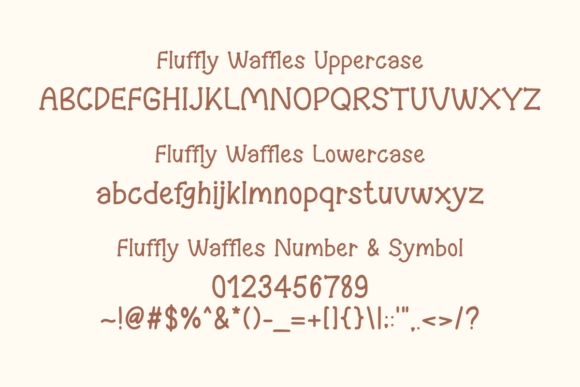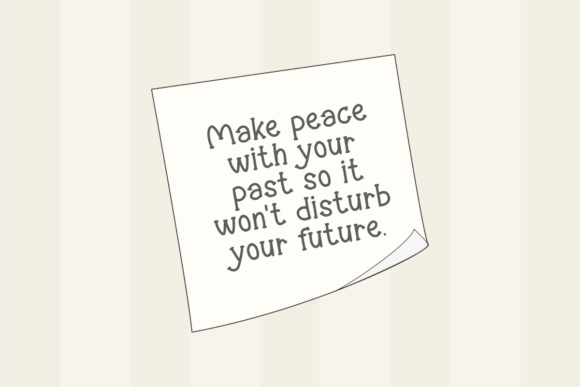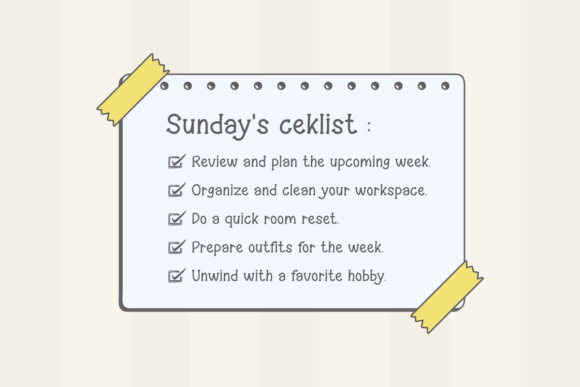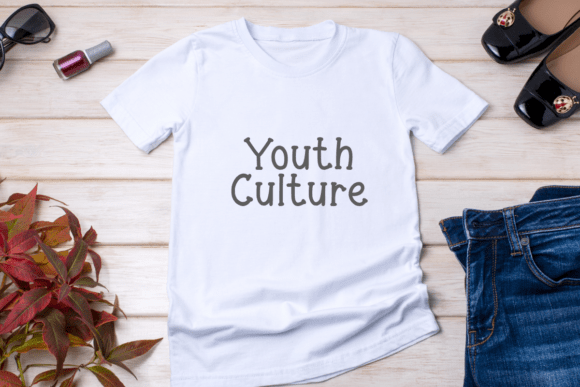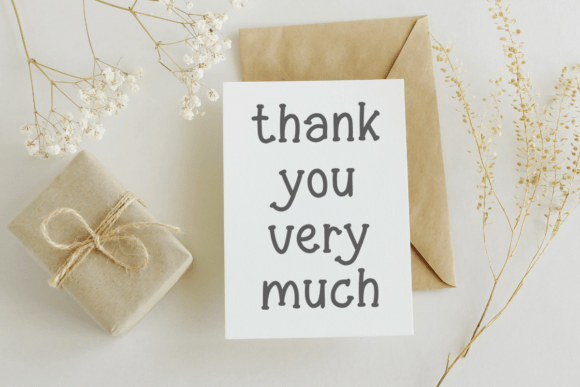
Introducing Fluffy Waffles Font: Elevate Your Designs with Elegant Minimalism
In the world of digital design, fonts play a crucial role in conveying the tone and aesthetic of a project. For crafters, designers, and DIY enthusiasts, finding the perfect font can be a game-changer. If you’re on the hunt for a font that embodies elegance, simplicity, and a touch of natural charm, look no further than Fluffy Waffles Font. This beautifully crafted, thin sans serif font is designed to bring a sophisticated yet understated appeal to a wide range of creative projects.
The Essence of Fluffy Waffles Font
Fluffy Waffles Font is an elegantly minimalist, thin sans serif font that captures the essence of natural handwriting. Its delicate strokes and subtle curves evoke a sense of simplicity and refinement, making it an ideal choice for designers and crafters seeking to add a touch of sophistication to their work. Whether you’re creating planners, journals, interior designs, or various craft projects, Fluffy Waffles Font is poised to elevate your designs to new heights.
One of the standout features of Fluffy Waffles Font is its incredible versatility. This font excels in a variety of applications, including:
- Planners and Journals: Add a touch of elegance to your planners and journals, making them perfect for personal use or as gifts.
- Interior KDP and Cricut Creations: Bring a sophisticated charm to your interior designs and Cricut projects, from custom home decor to personalized gifts.
- Stickers and Labels: Create eye-catching stickers and labels for your crafts, perfect for organization or decoration.
- Inspiring Quotes: Transform motivational quotes into stunning visual pieces, ideal for sharing on social media or displaying in your home or office.
- Tumblers, Mugs, and Tote Bags: Add a personal touch to your drinkware and apparel, making them unique gifts or personal items.
Why Choose Fluffy Waffles Font?
So, what sets Fluffy Waffles Font apart from other fonts? Here are a few compelling reasons to choose this beautiful font for your next project:
- Elegant Minimalism: Fluffy Waffles Font strikes the perfect balance between elegance and simplicity, making it suitable for a wide range of design applications.
- Understated Touch: This font adds a subtle yet sophisticated charm to your designs, ensuring they stand out without overwhelming the senses.
- Easy to Read: The clear, thin strokes of Fluffy Waffles Font make it easy to read, even at smaller sizes, ensuring your message is conveyed effectively.
- Highly Versatile: From digital designs to print materials, Fluffy Waffles Font adapts seamlessly to various mediums and applications.
Tips for Using Fluffy Waffles Font
To make the most of Fluffy Waffles Font, consider the following tips:
- Pair with Bold Fonts: Combine Fluffy Waffles Font with bold, contrasting fonts to create visual interest and hierarchy in your designs.
- Experiment with Colors: While the font itself is elegant and understated, don’t be afraid to experiment with different colors to add personality to your designs.
- Consider Size and Spacing: Play around with font sizes and spacing to achieve the perfect balance and emphasis in your designs.
Fluffy Waffles Font is a beautifully designed, thin sans serif font that brings a touch of elegance and minimalism to a wide range of creative projects. Its versatility, understated charm, and ease of use make it an excellent choice for designers, crafters, and DIY enthusiasts. Whether you’re creating planners, journals, stickers, or inspiring quotes, Fluffy Waffles Font is sure to elevate your designs and transform ordinary crafts into extraordinary artistic expressions.